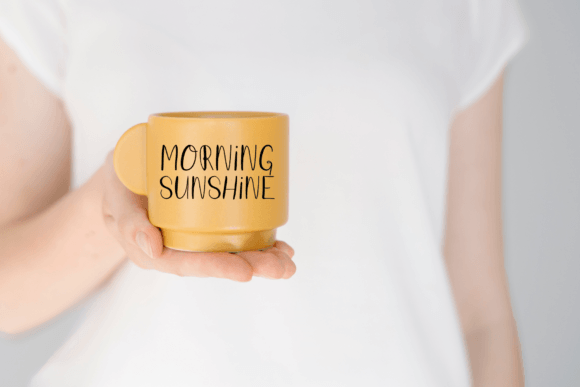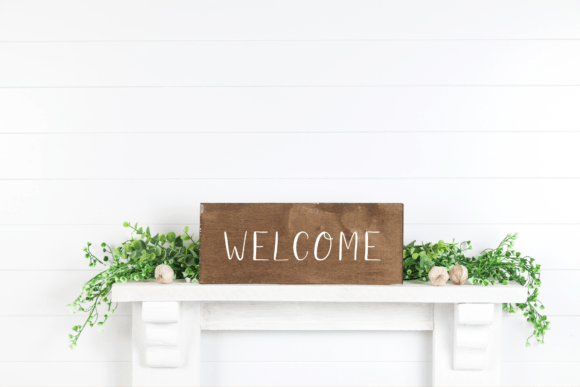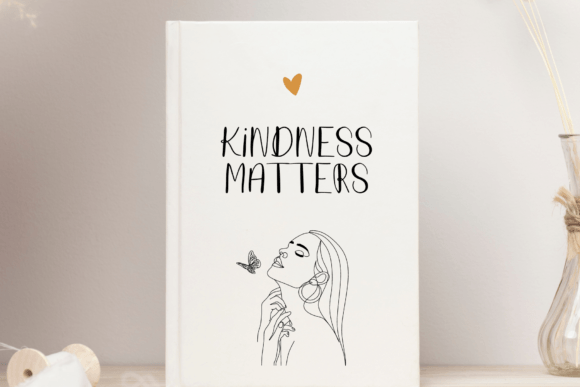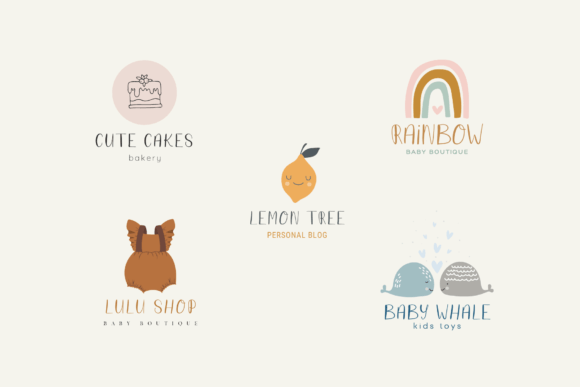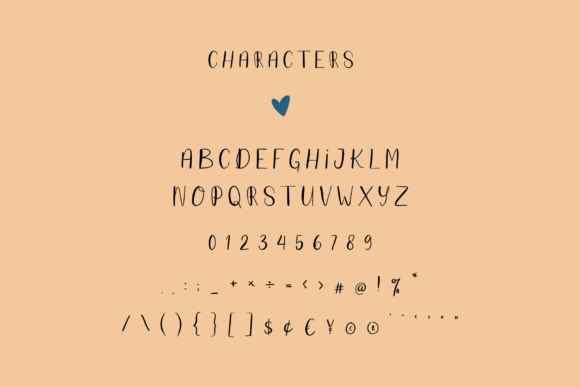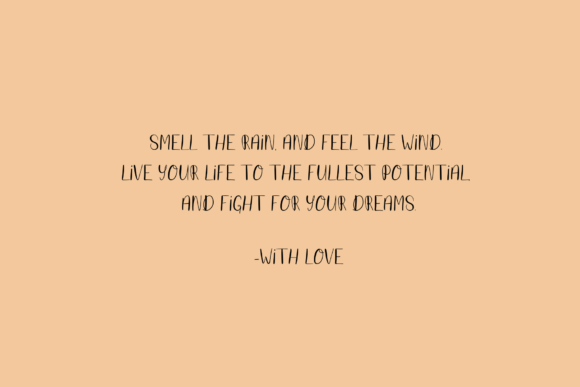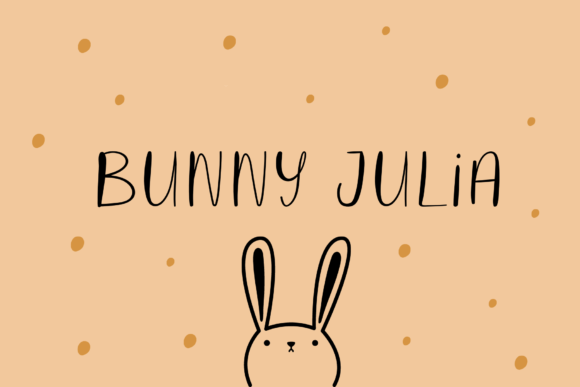
Bunny Julia Font: The Ultimate Handwritten Font for Creative Projects
Are you a designer, crafter, or DIY enthusiast looking for a unique and stylish handwritten font to elevate your creative projects? Look no further than Bunny Julia Font! This sweet and quirky font is perfect for creating beautiful logos, branding, notebooks, journals, labels, stickers, blogs, quotes, greeting cards, tea towels, apparel, pillows, mugs, toys, posters, baby clothing, picture books, and so much more.
What is Bunny Julia Font?
Bunny Julia Font is a handwritten font designed to add a touch of personality and whimsy to your creative projects. Its sweet and quirky style makes it perfect for a wide range of applications, from feminine and playful to rustic and charming. With its unique character set and stylish lettering, Bunny Julia Font is sure to make your designs stand out from the crowd.
Features of Bunny Julia Font
- Handwritten style: Bunny Julia Font has a beautiful, handwritten look that’s perfect for creating unique and personalized designs.
- Quirky and playful: This font has a sweet and quirky personality that’s sure to add a touch of whimsy to your designs.
- Versatile: Bunny Julia Font can be used for a wide range of creative projects, from logos and branding to journals and greeting cards.
- Easy to read: Despite its handwritten style, Bunny Julia Font is easy to read and understand, making it perfect for body text and captions.
Uses of Bunny Julia Font
Bunny Julia Font is perfect for a wide range of creative projects, including:
- Logos and branding: Create a unique and memorable logo for your business or brand with Bunny Julia Font.
- Notebooks and journals: Add a touch of personality to your notebooks and journals with Bunny Julia Font.
- Labels and stickers: Create custom labels and stickers for your products, gifts, or DIY projects.
- Blogs and quotes: Use Bunny Julia Font to add a touch of whimsy to your blog posts and quotes.
- Greeting cards and invitations: Create beautiful and personalized greeting cards and invitations with Bunny Julia Font.
- Apparel and accessories: Add a touch of personality to your apparel and accessories, such as t-shirts, mugs, and tote bags.
- Pillows and home decor: Use Bunny Julia Font to create custom pillows, tea towels, and other home decor items.
- Toys and posters: Create fun and playful toys and posters with Bunny Julia Font.
- Baby clothing and picture books: Use Bunny Julia Font to create adorable and personalized baby clothing and picture books.
Why Choose Bunny Julia Font?
There are many reasons why you should choose Bunny Julia Font for your creative projects. Here are just a few:
- Unique and stylish: Bunny Julia Font has a unique and stylish look that’s sure to make your designs stand out from the crowd.
- High-quality: This font is high-quality and designed to produce crisp and clear results, even at small sizes.
Tips for Using Bunny Julia Font
Here are a few tips for using Bunny Julia Font in your creative projects:
- Experiment with different sizes and colors: Bunny Julia Font looks great in a variety of sizes and colors, so don’t be afraid to experiment and find the perfect combination for your design.
- Pair with other fonts: Bunny Julia Font pairs well with other fonts, so try combining it with a bold or serif font for added contrast and interest.
- Use for headlines and body text: Bunny Julia Font is easy to read, making it perfect for both headlines and body text.
- Add a personal touch: Use Bunny Julia Font to add a personal touch to your designs, such as a handwritten note or signature.
| Author | Cotton White Studio |
Bunny Julia Font is a sweet and quirky handwritten font that’s perfect for designers, crafters, and DIY enthusiasts. With its unique character set and stylish lettering, this font is sure to add a touch of personality and whimsy to your creative projects. Whether you’re creating logos, branding, notebooks, journals, or any other type of design, Bunny Julia Font is a great choice. So why wait? Download Bunny Julia Font today and start creating beautiful and unique designs!